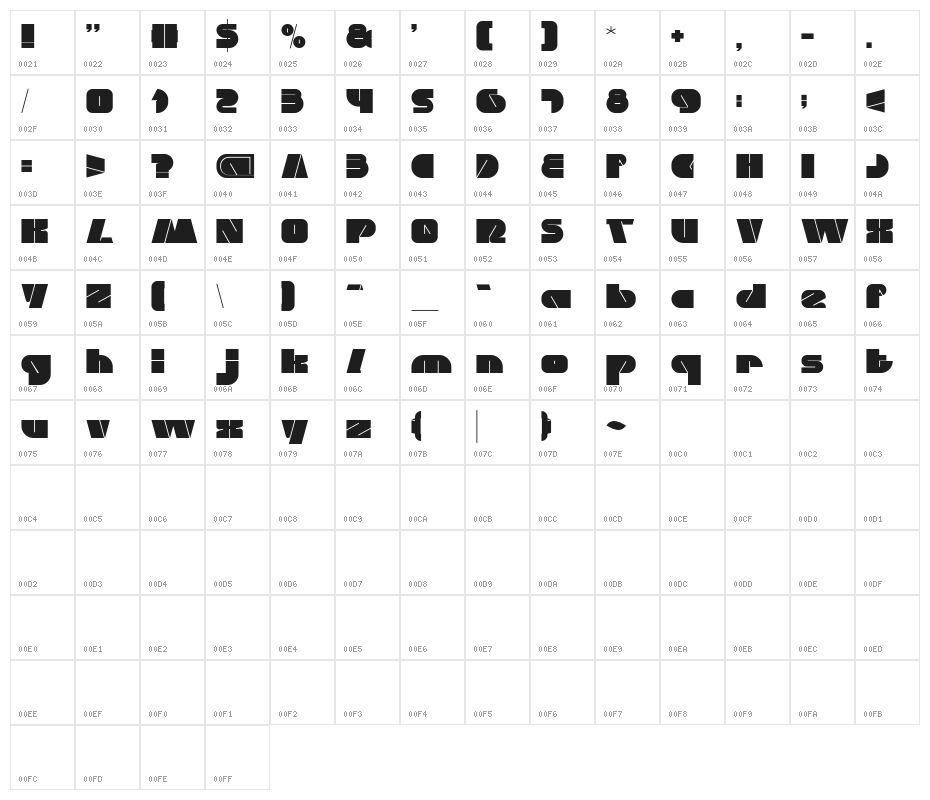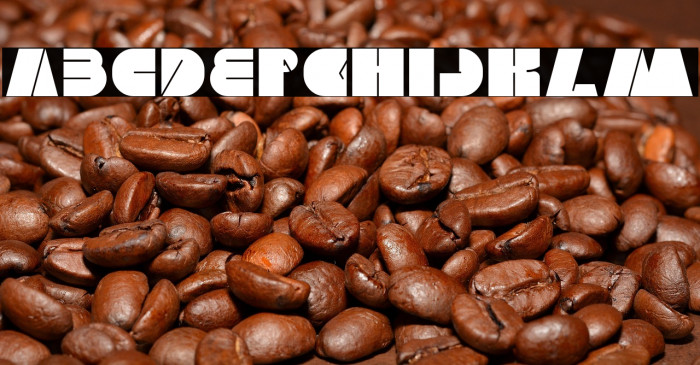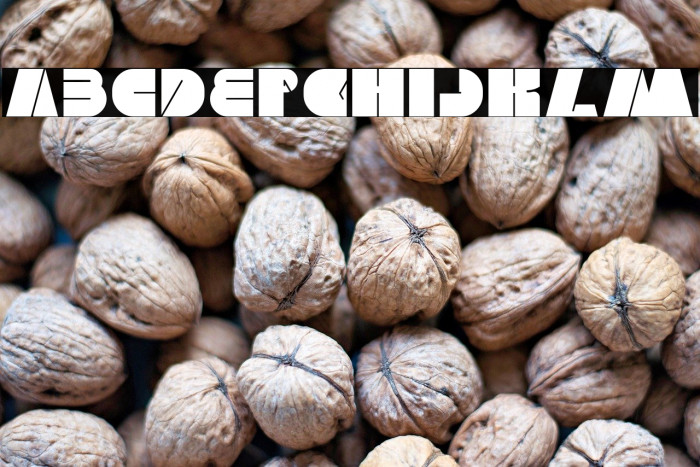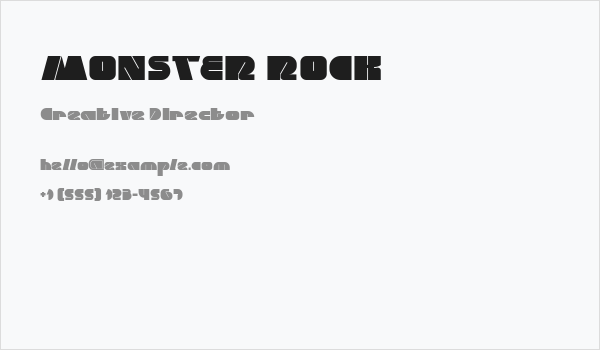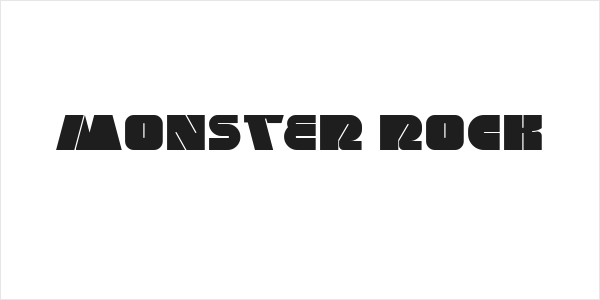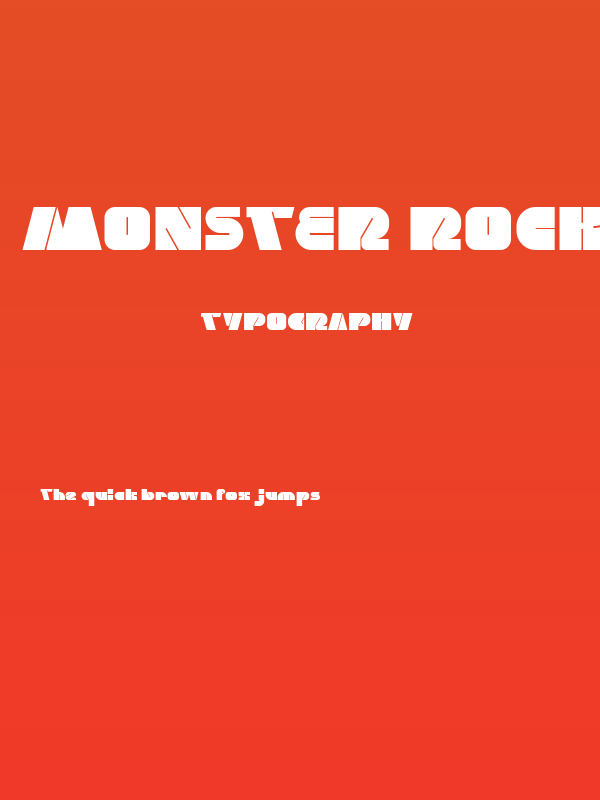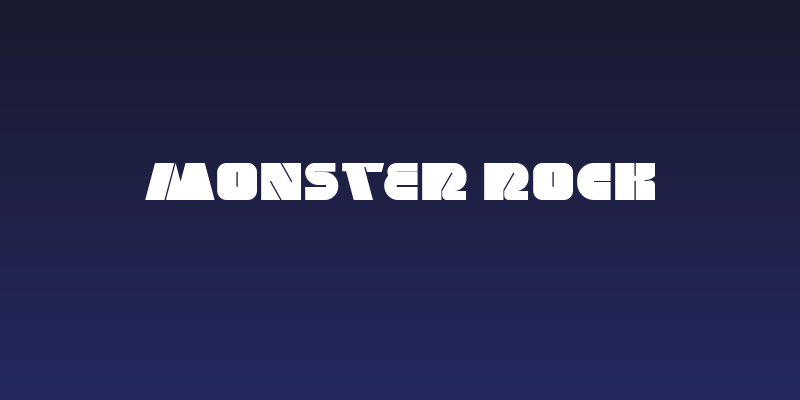
MONSTER ROCK Font
MONSTER ROCK Description
This font features a bold and geometric design with strong, angular shapes. The characters are constructed with a combination of sharp edges and smooth curves, creating a striking and modern appearance. The uppercase letters are particularly prominent, with a blocky and robust style that commands attention. Lowercase letters maintain the same boldness, ensuring consistency across the typeface. Numerals and special characters are designed to match the overall aesthetic, making them suitable for impactful and eye-catching designs. The font's unique style makes it ideal for projects that require a strong visual presence.
| Use Case | Logos, Headlines, Posters |
| Proposed Projects | Ideal for branding, posters, album covers, and any design requiring a bold statement. |